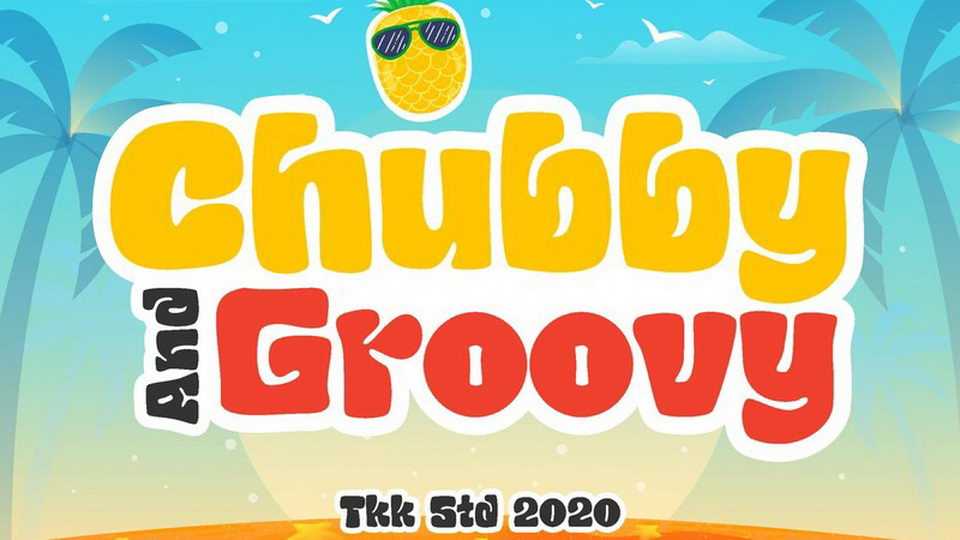
Download Chubby and Groovy font, a vintage typeface that break the boundaries. Chubby and Groovy bring happiness and childish attitude in a grooviest way ever.